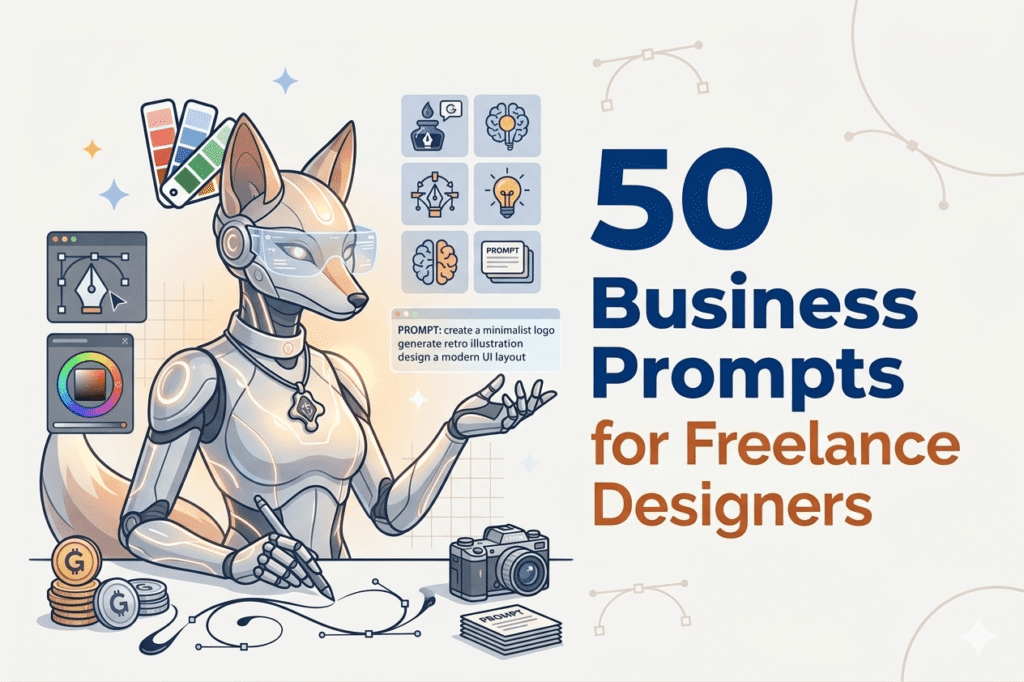
50 Business Prompts for Freelance Designer: Pitching, Pricing, and Positioning in 2026
In 2026, being a “great designer” is only 20% of the equation. The other 80%? That is the Business of Design. At TypeTasty, we have a distinct vantage point of the creative industry. We don’t just design typography; we empower designers. And we see it every day: incredibly talented artists—the masters of the Organic Serif and the cohesive color palette—struggling to make a sustainable income because they treat their freelance practice like a creative hobby.
The truth is this: the market does not pay you for your talent; it pays you for your ability to solve a business problem. If you look like a pixel-pusher, you will be priced like one. But if you position yourself as a strategic consultant, you command the kind of fees that allow you to scale.
To help you bridge that gap, we’ve curated a Swipe File of 50 Business Prompts specifically for freelance designers who want to master their pitching, pricing, and market positioning. These aren’t generic marketing ideas; they are tailored to the 2026 creative who demands more than just a living wage.
Section 1: The Psychology of 2026 Freelancing
Before we dive into the prompts, we need to address the shift in client psychology. In 2026, clients are fatigued by perfect, AI-generated designs. A simple logo or a clean website is no longer a luxury—it’s a commodity. What they are willing to pay a premium for is Authenticity and Soul.
This is where the concept of Subjective Design becomes your greatest asset. When we talk about TypeTasty fonts, we emphasize the humanity—the slight imperfection of an organic stroke, the tactile quality of a soft-edge serif. This philosophy doesn’t just apply to typography; it applies to your entire business model. By adding your unique, subjective perspective to the business conversation, you move from being an expense to being an essential investment.
Section 2: Master the Pitch (Opening the Door)
Use these prompts to turn cold leads into warm conversations that focus on value.
- “Draft a 3-sentence intro that focuses on the client’s visual debt rather than my services.”
- “Create a pitch for a ‘Rebrand’ that uses a ‘Real Estate’ metaphor: Why their current design is a ‘fixer-upper’.”
- “How do I explain the ROI of a custom TypeTasty wordmark to a skeptical CEO in 280 characters?”
- “Write a follow-up email for a client who said ‘it’s too expensive’—without lowering the price.”
- “Draft a LinkedIn DM for a startup founder that mentions their competitor’s superior typography.”
- “Create a ‘Discovery Call’ script that asks: ‘What happens to your business if we don’t fix this design today?'”
- “How to pitch an Organic Serif to a tech brand that thinks they need to look like Apple.”
- “Write a ‘Goodbye’ email to a lead that is clearly a ‘red flag’ client, staying professional but firm.”
- “Create a pitch for a ‘Design Audit’—a low-cost entry point to a high-ticket rebrand.”
- “Draft a ‘Value-Based’ proposal header: ‘How a Visual Identity Refresh will Increase Your Conversion by X%.'”
Section 3: The Pricing Engine (Commanding Your Worth)
Stop selling hours. Sell outcomes. Use these to move into value-based wealth.
- “Write a script for when a client asks ‘What is your hourly rate?’ (Hint: The answer is ‘I don’t have one’).”
- “Describe my ‘Premium’ package as an investment in ‘Market Authority’ rather than just ‘files’.”
- “Create 3 tiers of pricing for a logo project. Tier 1: The Foundation. Tier 2: The Signature. Tier 3: The Legacy.”
- “Draft an email explaining a 15% price increase to existing clients due to ‘Increased Strategic Value’.”
- “How to justify a $500 ‘Rush Fee’ without sounding greedy.”
- “Write a proposal section on ‘Font Licensing’—why the client pays for the right to use the art, not just the art.”
- “Create a ‘Payment Schedule’ prompt that ensures 50% upfront, every single time.”
- “Draft a ‘Value-Add’ list: 5 things I include in my $5k package that the $500 designer doesn’t know exists.”
- “How to talk about ‘Budget’ in the first 5 minutes of a call without it being awkward.”
- “Write a ‘Cost of Inaction’ paragraph for a $10k branding proposal.”
Section 4: Strategic Positioning (Being the Only Option)
A generalist is a commodity; a specialist is a celebrity. These are your niche-down tools.
- “If I am the ‘Anti-Template’ designer, how do I describe my process to a client who loves Canva?”
- “Identify 3 micro-niches (e.g., ‘Eco-Luxury Skincare’) where Organic Serifs are the dominant ‘Trust’ signal.”
- “Write my ‘About Me’ page without using the words ‘passionate,’ ‘creative,’ or ‘detail-oriented’.”
- “Create a ‘Manifesto’ for my design studio: ‘Why we believe in Subjective Design over Safe Trends’.”
- “How does my design style solve a specific emotional problem for my target audience?”
Freelancing in 2026 is an amazing opportunity, but only for those who are willing to rebrand their business mindset. We hope these 50 prompts help you audit your current processes, improve your pitching, and command the pricing you are actually worth. Don’t let your talent be a commodity. Treat your kerning with care, but treat your contracts and client conversations with even more care.
Your typography is the “clothing” of your message. Your business practices are the foundation of your future. Design them both with subjective intention.